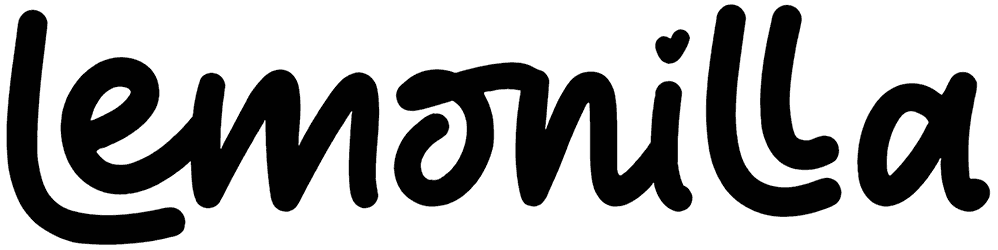
Lemonilla Font
Designed byZeenesia Studio
Lemonilla is designed with bold and marker-written characters and can transfer your texts or headlines into something cool, casual, and, as you can guess from its name, summery.
You can use this script font for drama and high school movie titles, channel banners, gaming, and movie headlines. The letters are designed to form a continuous style when they are put together in words.